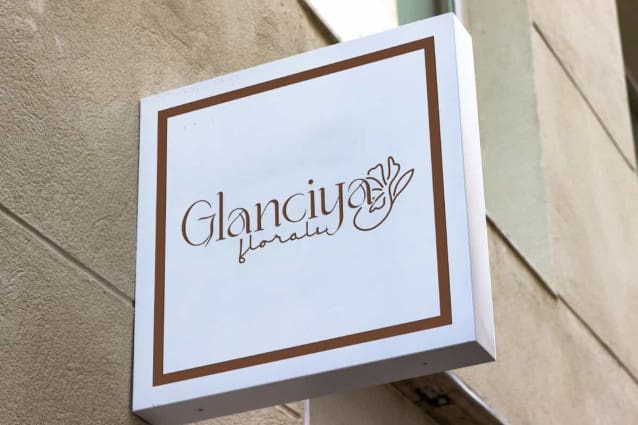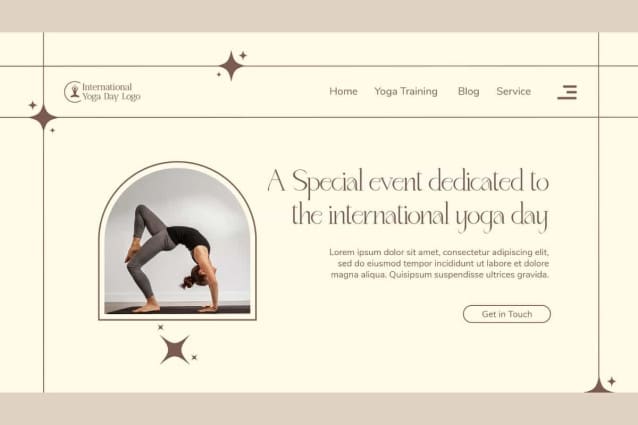
Germany White Font
Germany White Font is a stunning minimalist serif display font in modern look. This font has fancy look with minimalist and sleek letter. It will be perfect for any designs, such as brand image, cover, custom design, invitation, label, marketing material, menu, poster, product packaging, quote, signage, stationery, web, and many more!
Germany White Font includes full set of Uppercase and Lowercase Basic Characters, Numerals, Punctuation, and Symbol. This font has thin line with clean look which is perfect choice for many industries, such as accessories, advertising, art, beauty product, cafe, event or wedding organizer, fashion, jewelry, photography, printing, publishing, restaurant, etc.